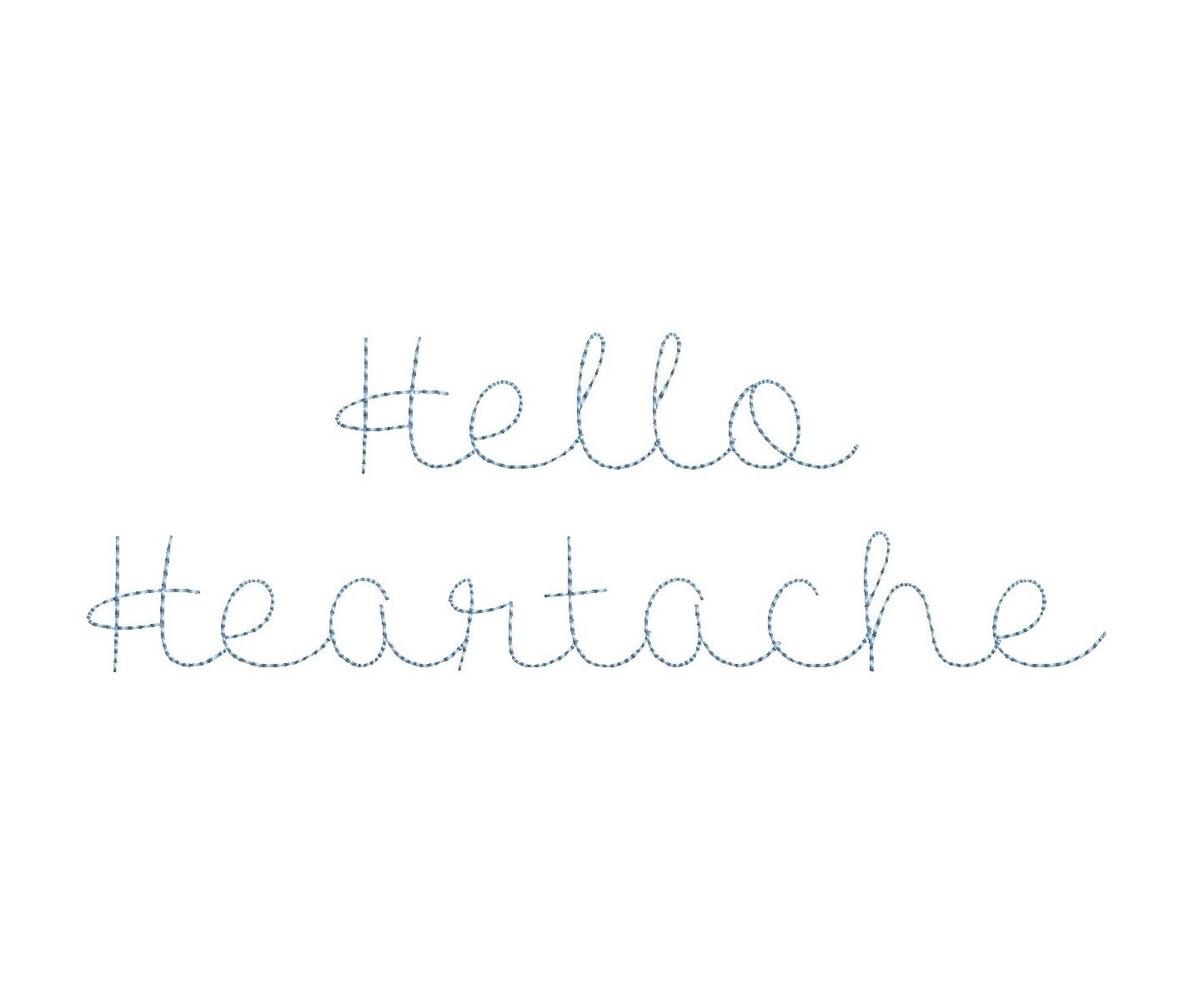
Embark on an emotional journey with 'Hello Heartache Bean Stitch ESA' font, designed for embroidery enthusiasts seeking heartfelt and poignant designs. This captivating typeface expresses the depths of emotions, elevating your creations to a level of raw honesty. Seamlessly compatible with Wilcom Studio e4.5.6 and Hatch 3 versions and above, it effortlessly integrates into your digitizing workflow. Its intricate curves and precise bean stitches ensure impeccable stitch quality, making your embroidery projects stand out with soul-stirring beauty. Ideal for sentimental monograms, quotes, and decorative elements, this ESA font sparks creativity and guarantees a masterpiece that touches hearts. Share the emotions with 'Hello Heartache Bean Stitch ESA' font today!